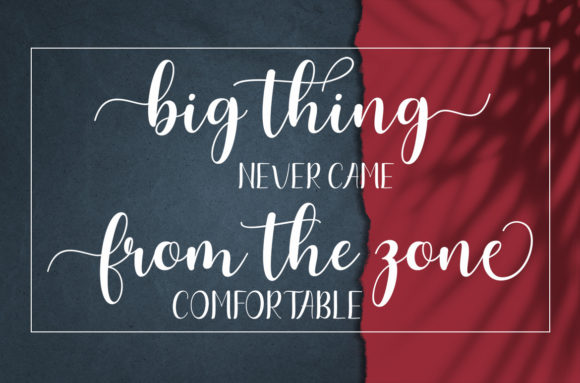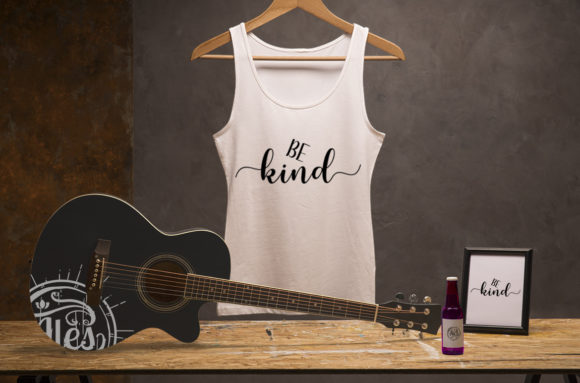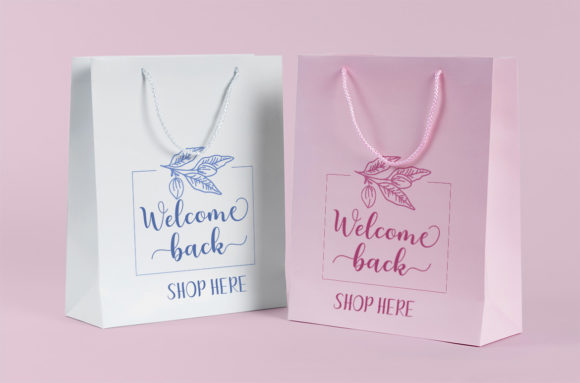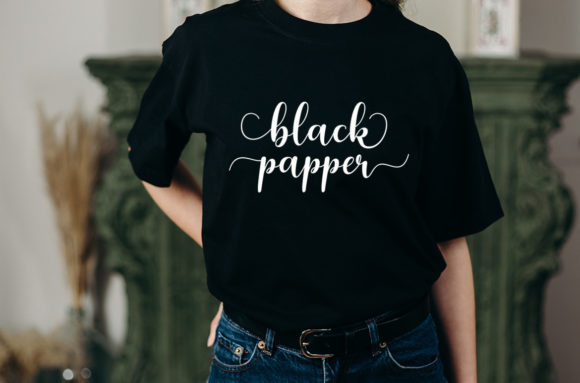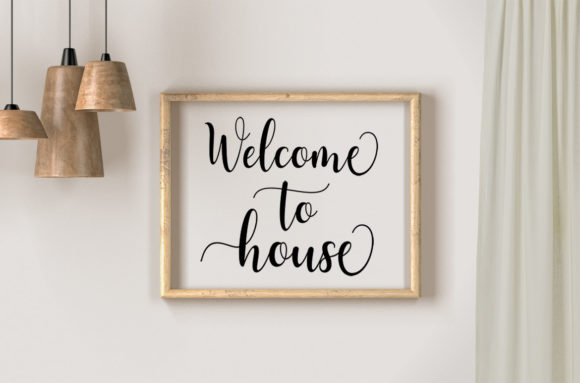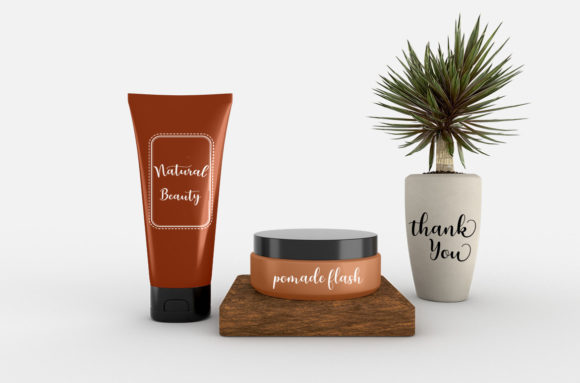
Unlocking the Beauty of Handwritten Characters
As a designer, there’s nothing quite like the thrill of discovering a new font that sparks creativity and sets your imagination ablaze. It’s that moment when the perfect typography brings a project to life, and you know you’ve found something special.
| 📌 Product Name | Bartleen Font |
| 👤 Author | Fontensy |
Meet Bartleen Font, a stunning, two-styled handwritten font that’s designed to dance along the baseline. With its beautiful characters and PUA (Private Use Area) encoding, this font is a dream come true for designers who crave unique and expressive typography. Whether you’re working on a personal project or a commercial campaign, Bartleen Font is the perfect addition to your design toolkit.
Bartleen Font Review
I recently had the chance to work with the Bartleen font, and I must say it’s a unique and interesting typeface. ✨ One of the things that stands out is its beautiful, cursive script that adds a touch of elegance to any design. The font is perfect for creating a warm and inviting atmosphere in publications, websites, or even marketing materials.
Here are some of the things that work well with Bartleen:
- ✨ Unique, cursive script that adds a personal touch
- ✨ Elegant and refined, perfect for high-end designs
- ✨ Great for creating a sense of warmth and invitation
- ⚠️ The font may not be suitable for body text due to its cursive nature, which can be difficult to read at smaller sizes
- ⚠️ The font may not be as versatile as other typefaces, and may not work well with certain design styles
Overall, I think Bartleen is a great choice for designers who want to add a touch of elegance and sophistication to their designs. However, it’s essential to use it judiciously and consider its limitations when making design decisions.
For a more professional look, pair Bartleen with a clean background and minimal graphics.
Use Bartleen to create eye-catching headlines or titles in your designs.
Use Bartleen to create professional-looking titles and headings in your presentations and documents.
Bartleen font is ideal for:
1. Headlines and titles.
2. Branding and logos.
3. Creative and artistic designs.
For the most effective use of Bartleen, pair it with a clean and simple design aesthetic.
Alternatives to Bartleen Font
Great Vibes is a modern, elegant script font. It’s ideal for use in invitations, wedding stationery, and other creative projects where a touch of sophistication is needed. Compared to Bartleen Font, Great Vibes is more refined and has a more subtle flair, making it suitable for formal events.
Alex Brush is a beautiful, handwritten font with a personal touch. It’s perfect for use in blog posts, quotes, and other creative content where a sense of warmth and personality is desired. Compared to Bartleen Font, Alex Brush has a more rustic feel and is better suited for informal projects.
Dancing Script is a lively, energetic script font. It’s ideal for use in promotional materials, social media posts, and other projects where a sense of excitement and playfulness is needed. Compared to Bartleen Font, Dancing Script has a more dynamic feel and is better suited for projects that require a lot of movement and energy.
Lobster is a unique, cursive font with a fun and quirky feel. It’s perfect for use in creative projects, such as advertisements, social media posts, and other content where a sense of playfulness is desired. Compared to Bartleen Font, Lobster has a more casual feel and is better suited for projects that require a lighthearted tone.